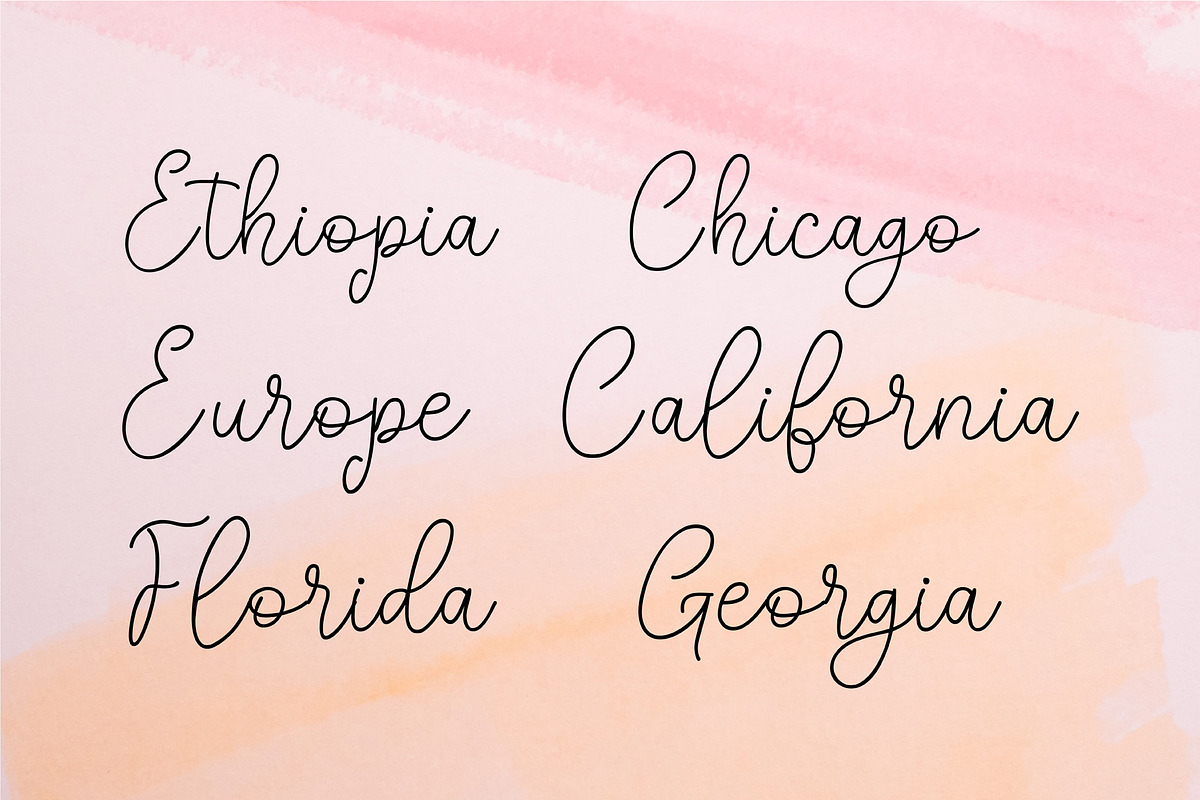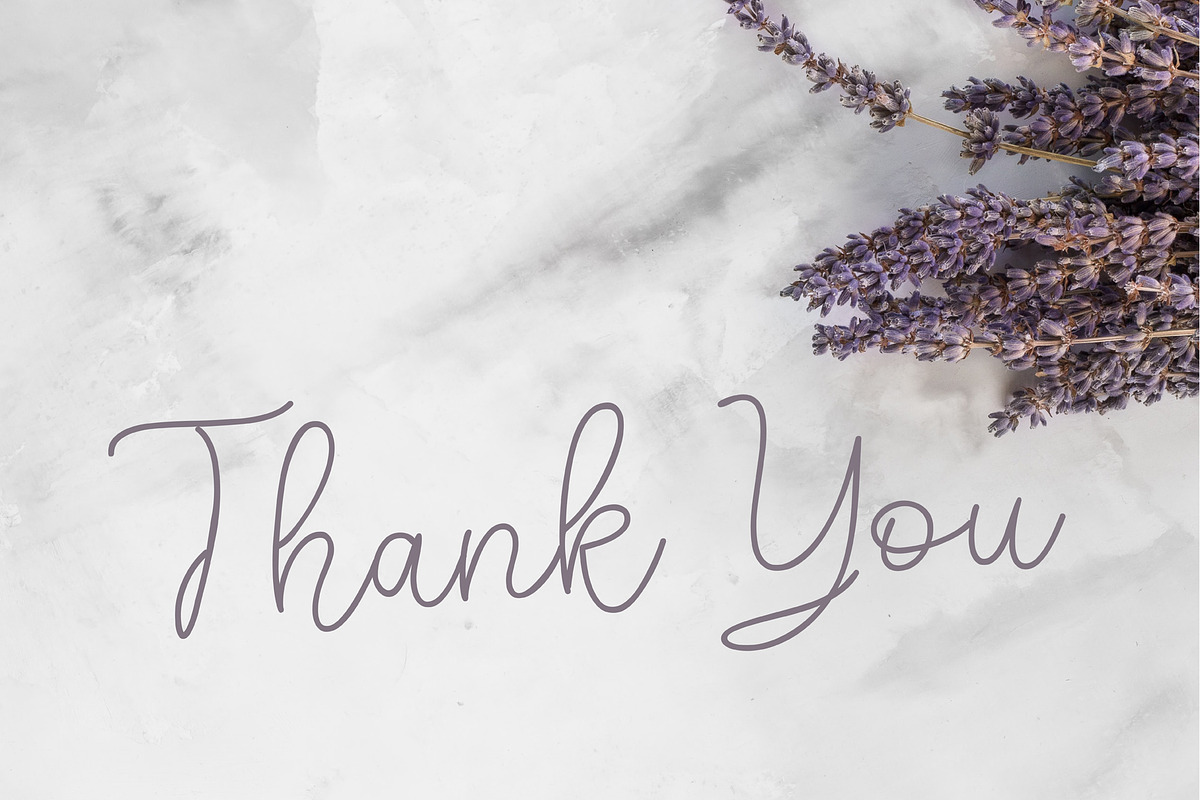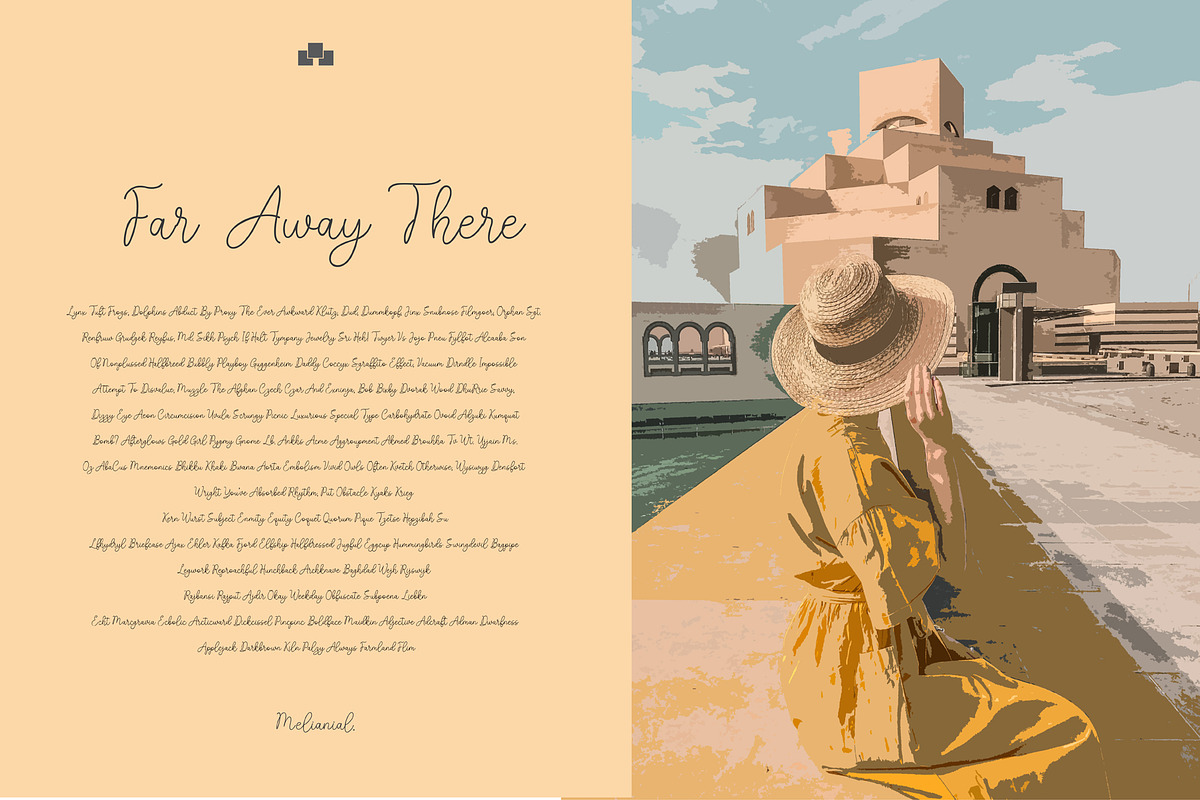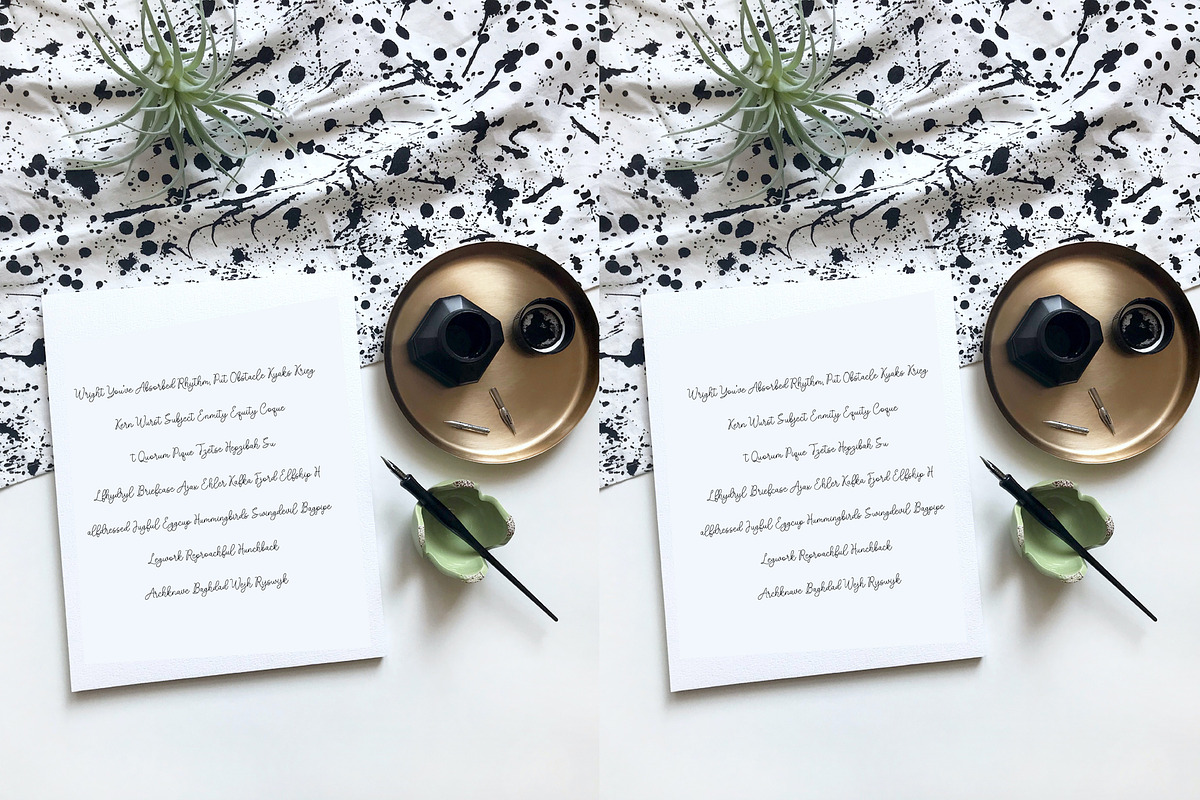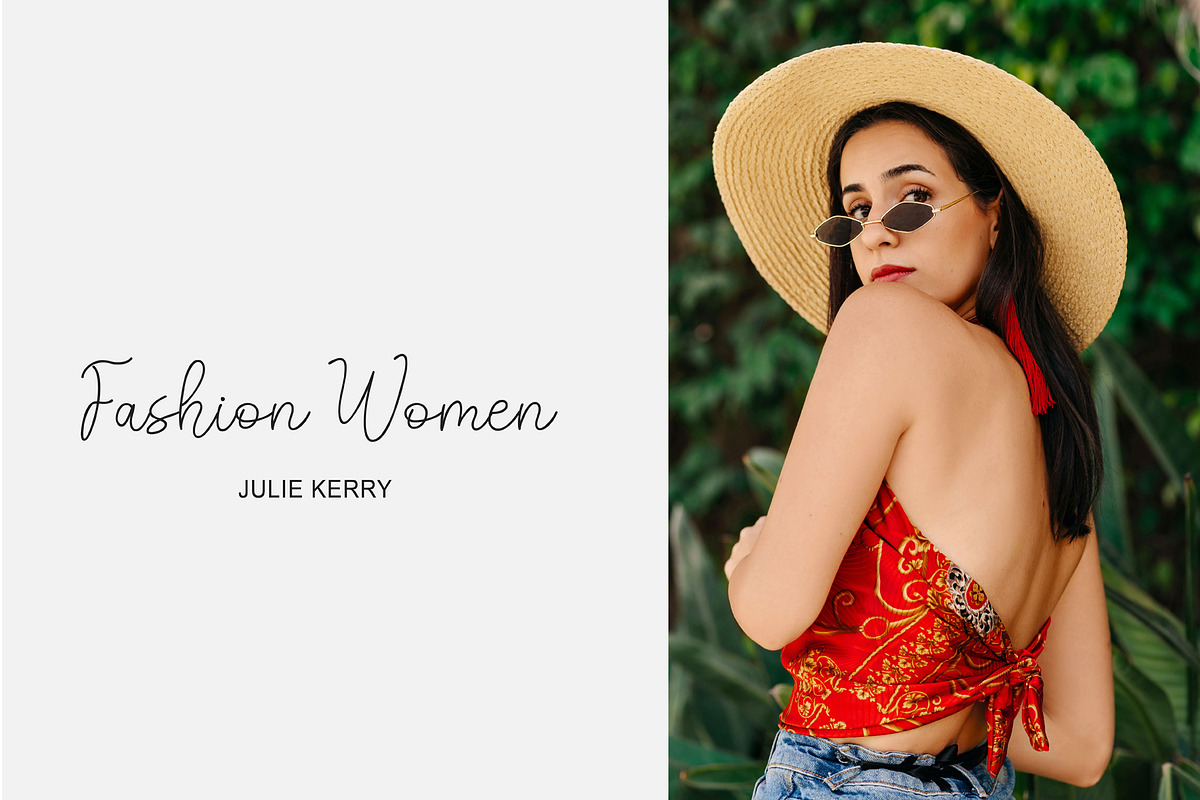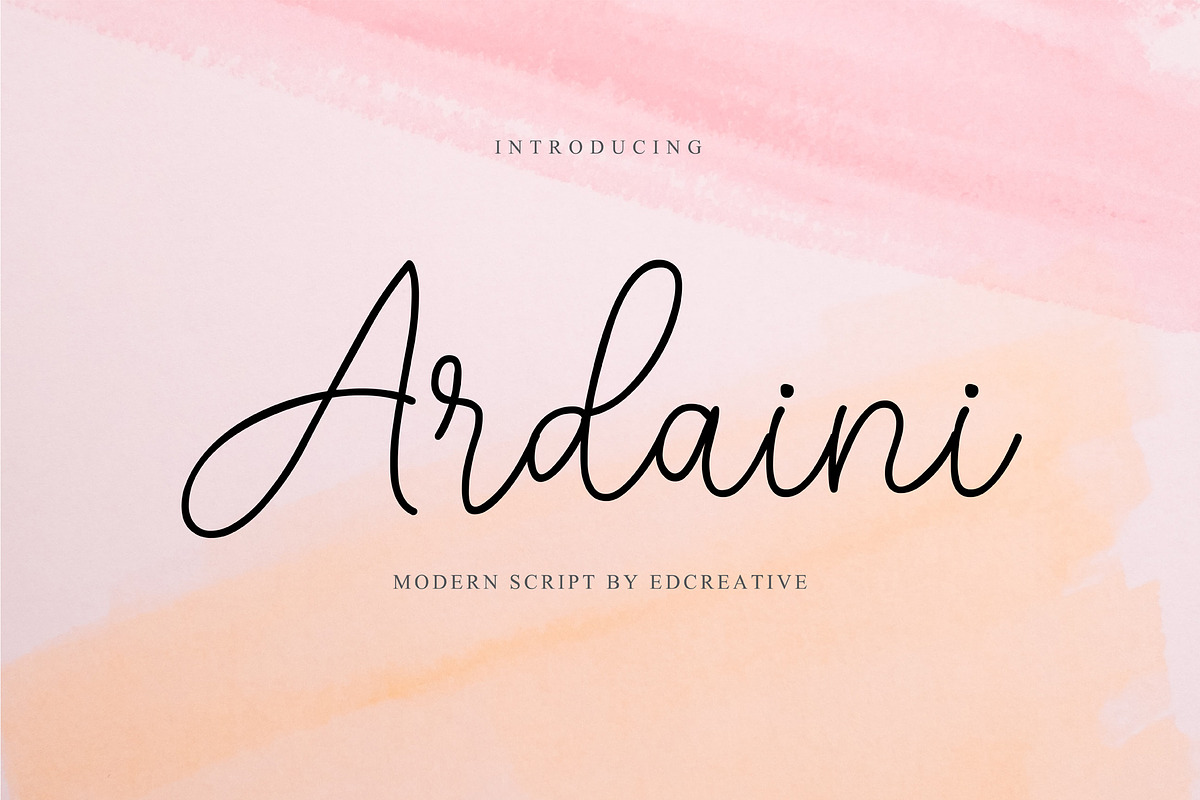
Ardaini
Ardaini is a modern, elegant calligraphic font. With its beautiful rhythm, this font will help you create beautiful and classy compositions. Use it for branding projects, invitations, web graphics, cards, and more!